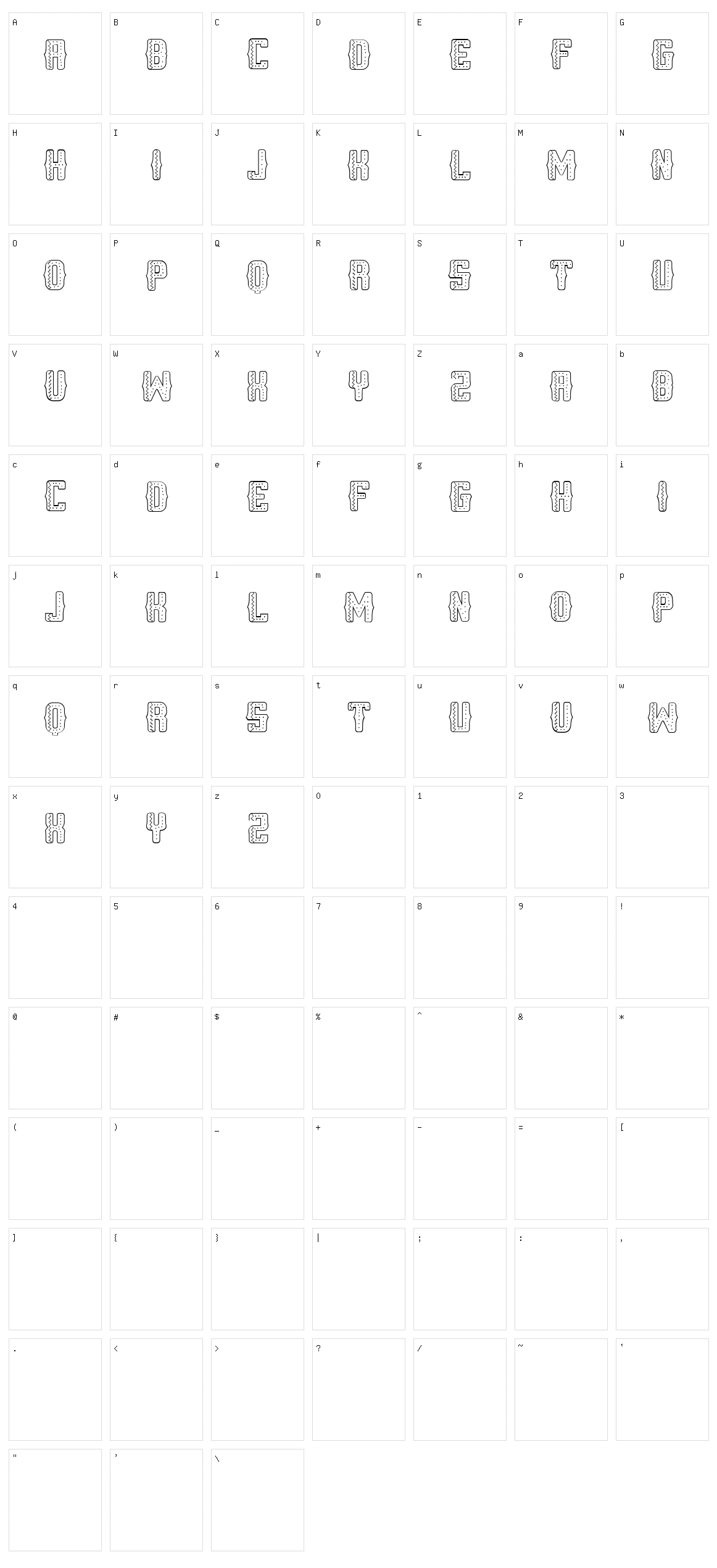
The free font Sombrero is carefully designed by Vladimir Nikolic, showcasing a thoughtful balance of creativity and usability and falls under the Mexican font style. When you download the ZIP file, it contains only 453.88 KB of font files, making it lightweight and quick to download. Please review the license details below to understand permitted usage and distribution rights. If license information is not available, we recommend using this font for personal projects only or contacting the author directly for commercial usage permissions.